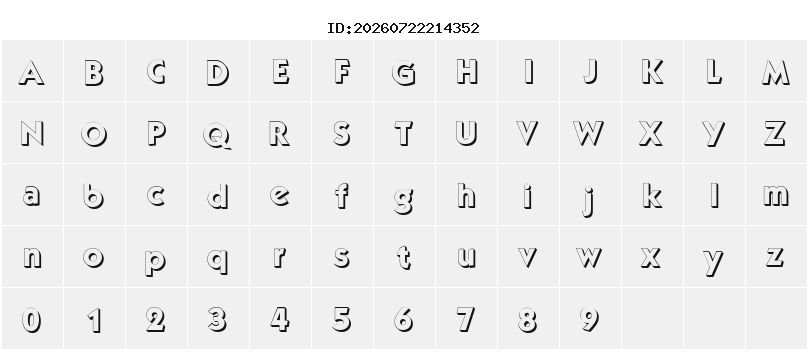
Mouser 3D Preview
• Font Name: Mouser 3D
• Font Style: 3D
• Font ID: Mouser
• Full Font Name: Mouser 3D
• PostScript Name: Mouser3D
• Character Count: 239
About Mouser 3D.ttf
Mouser 3D.ttf is a modern, elegant sans-serif font designed for ultimate readability and visual harmony. Perfect for branding, headlines, web design, and print materials.